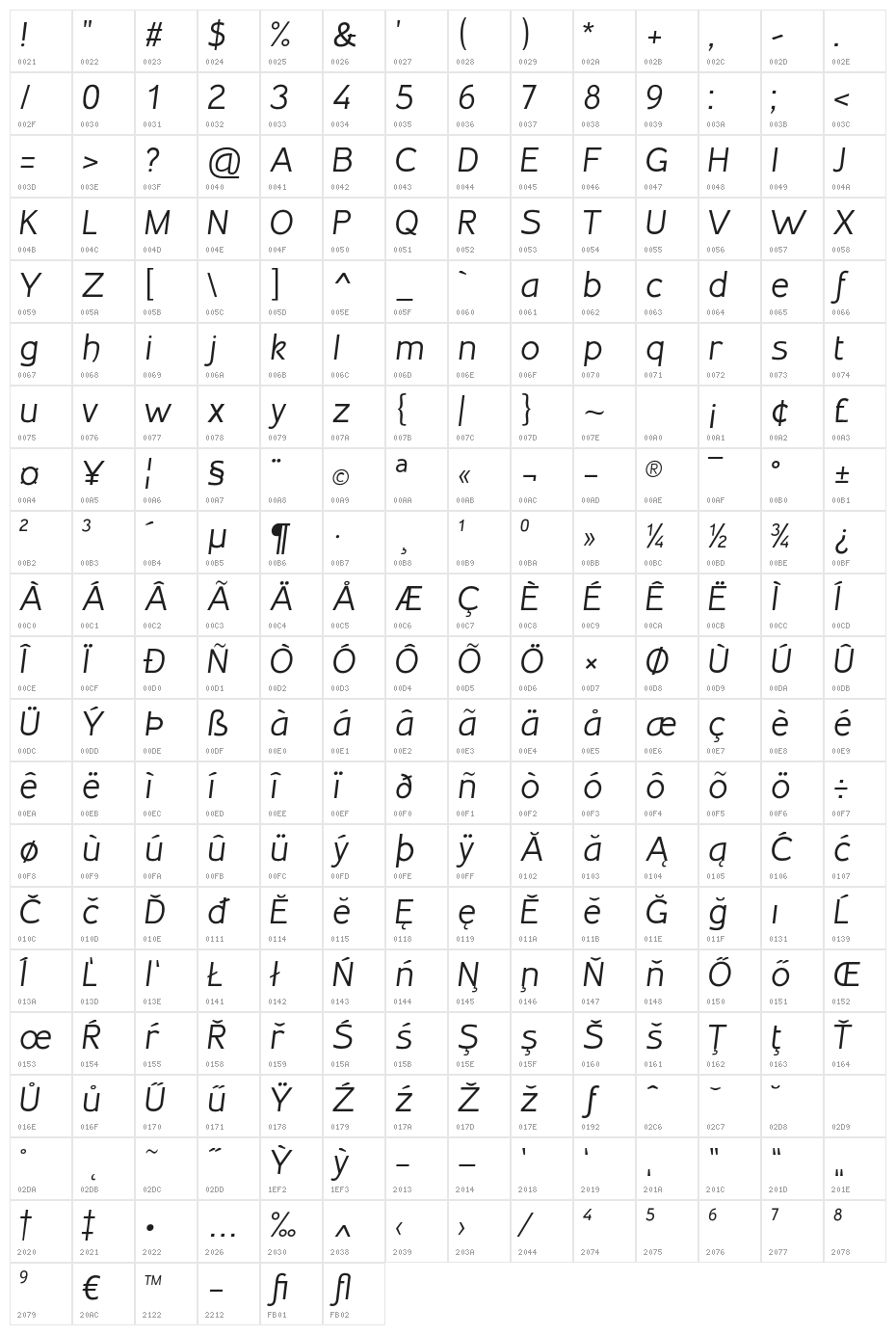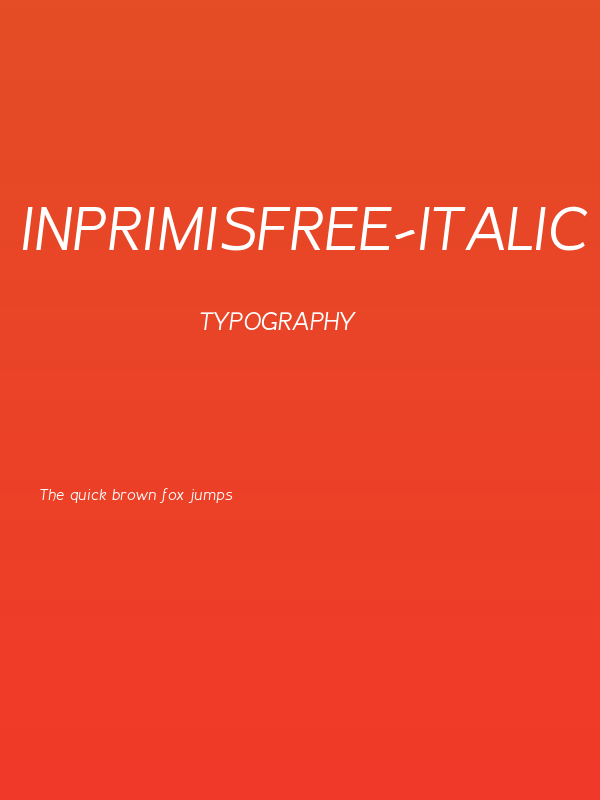
Inprimisfree-Italic Font
Inprimisfree-Italic Description
This font features a sleek, modern design with a slight italic slant, giving it a dynamic and forward-moving appearance. The characters are clean and well-defined, with smooth curves and a consistent stroke width that maintains readability. The uppercase letters are bold and commanding, while the lowercase letters are slightly more rounded, providing a harmonious balance. The numerals are clear and distinct, making them suitable for a variety of applications. The special characters are well-integrated, ensuring versatility in design projects.
| Proposed Projects | Ideal for branding, advertising, and editorial design where a modern and dynamic look is desired. |